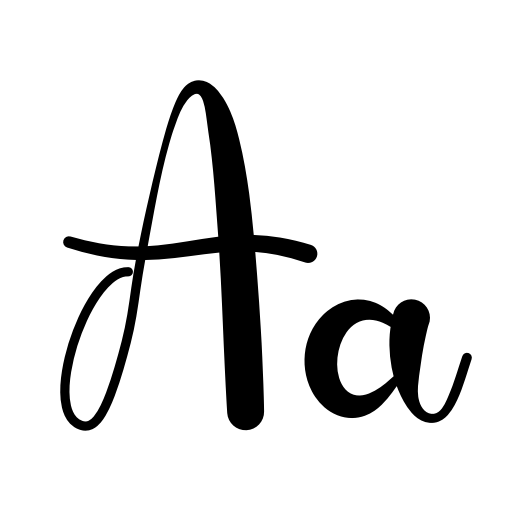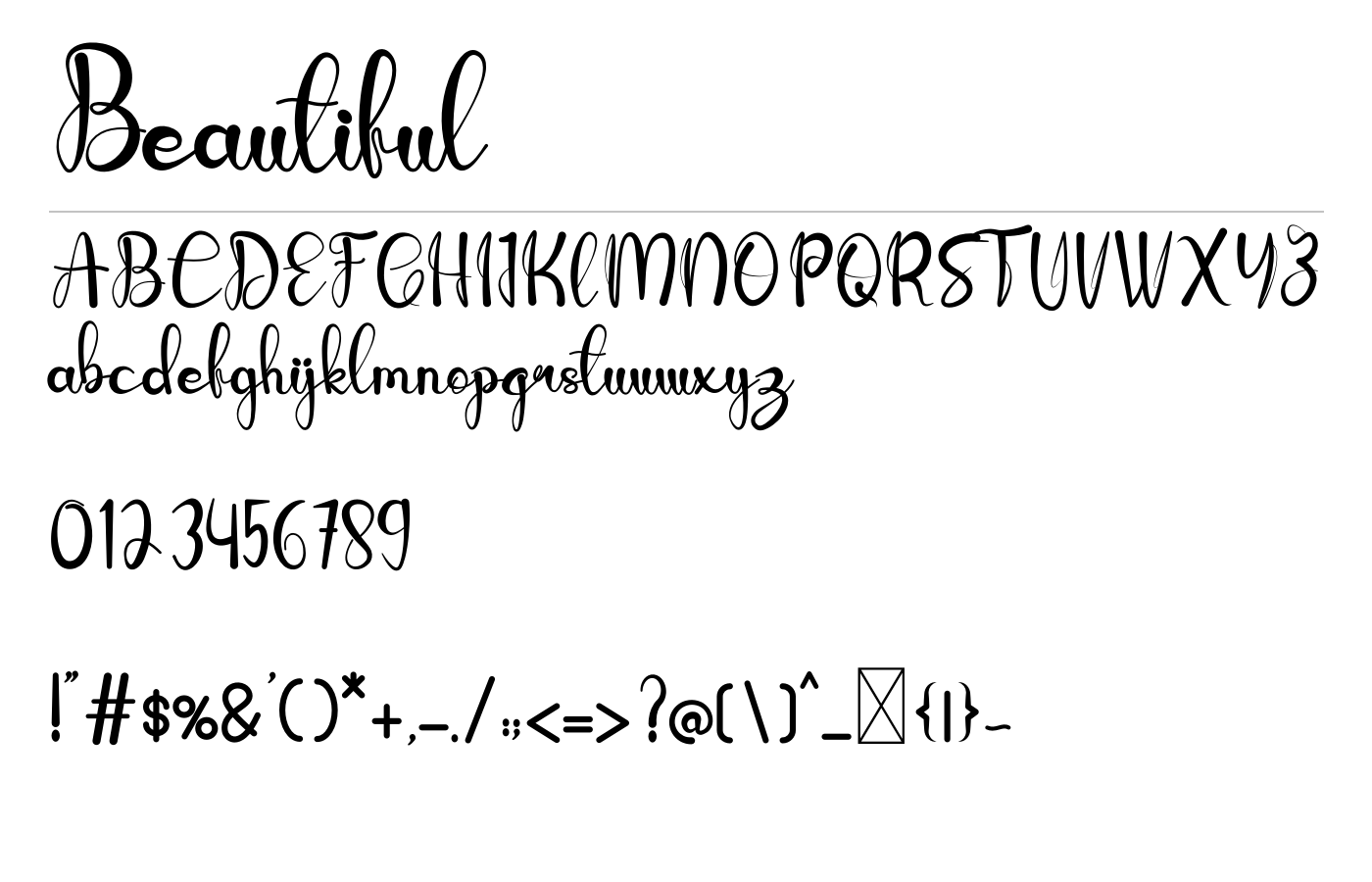
Beautiful Font is a lively and elegant script font characterized by its flowing, hand-drawn style with playful flourishes and moderate stroke contrast. Its tall x-height and smooth, curved letterforms create a friendly, approachable personality ideal for creative branding, invitations, and feminine design projects. This font works wonderfully in headlines and decorative text where a charming, handcrafted feel is desired.
Beautiful Font
About Beautiful Font